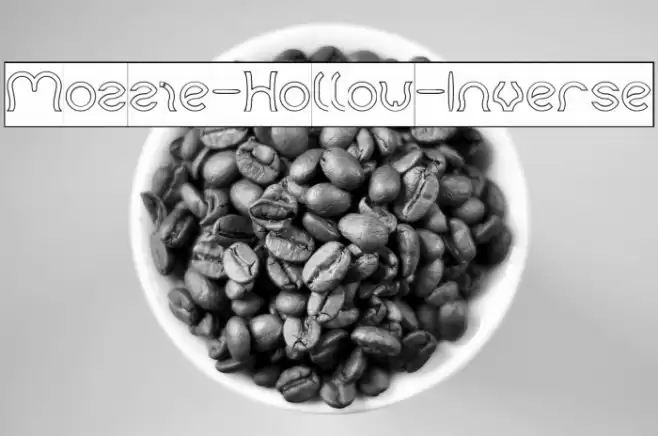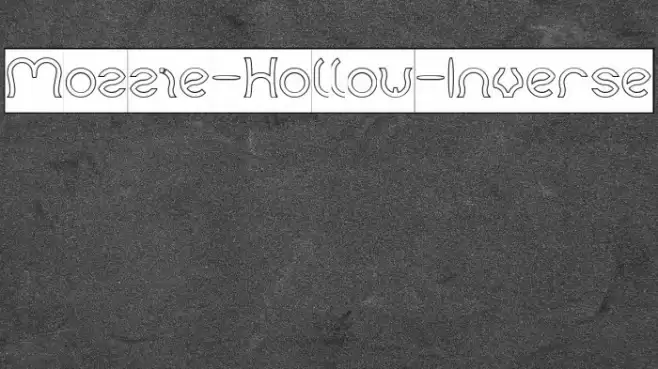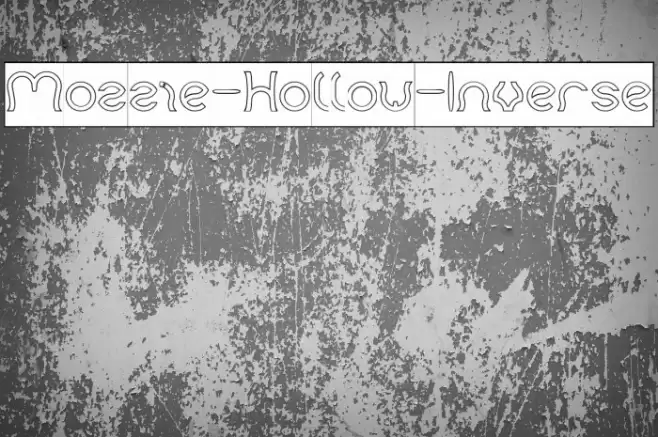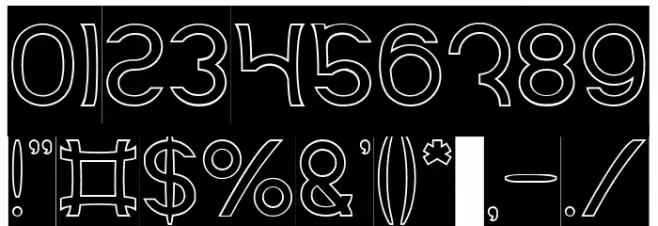
Mozzie-Hollow-Inverse Font
This font features a unique hollow design with an inverse style, creating a striking visual effect. The characters are outlined with a consistent stroke width, giving them a bold appearance despite the hollow centers. The design incorporates smooth curves and sharp angles, resulting in a modern and artistic look. The uppercase and lowercase letters maintain a cohesive style, while the numbers and special characters complement the overall aesthetic. This font's distinctive appearance makes it suitable for creative and eye-catching designs.
A modern, hollow inverse font with bold outlines and artistic curves from Uncategorized fonts.
- Proposed Projects: Ideal for branding, posters, album covers, and any project requiring a bold, artistic touch.